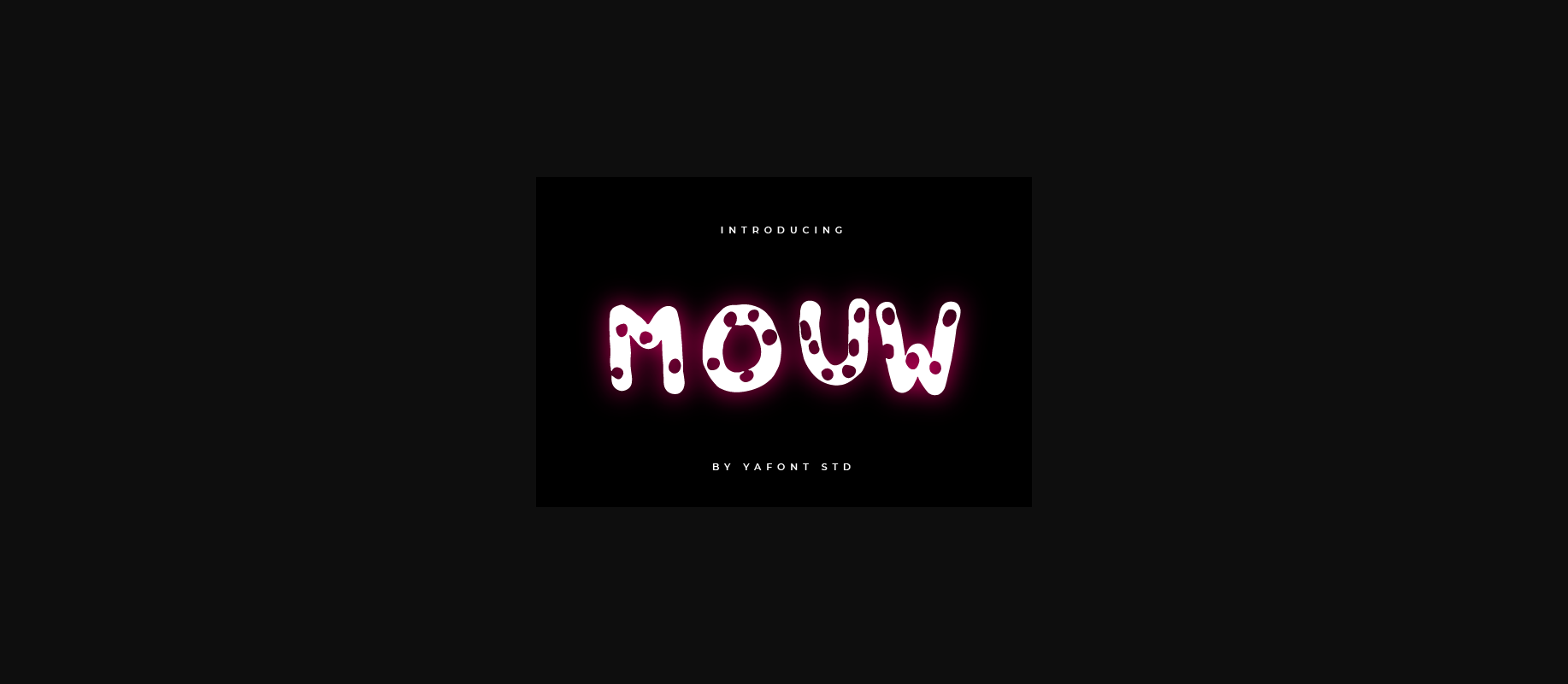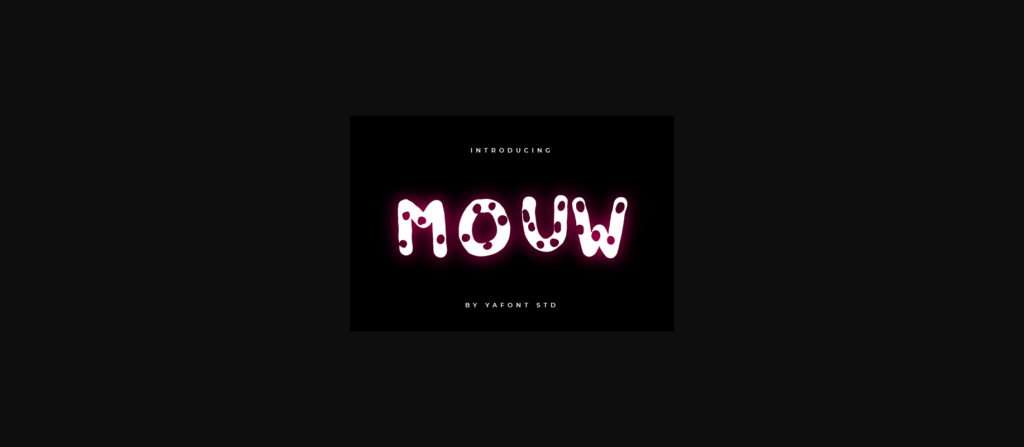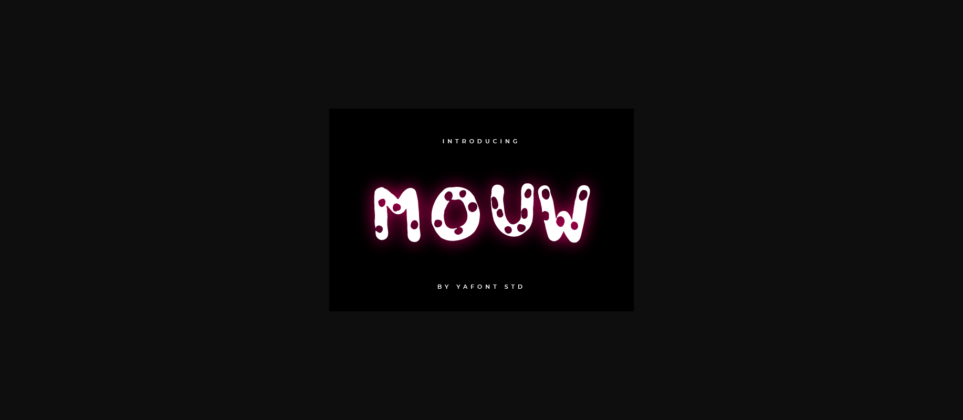
Mouw Font
About Mouw Font
Mouw is a cute & friendly decorative font. Get inspired by its incredibly youthful feel. Add this chunky lettered font to your designs and notice how it makes them come alive!